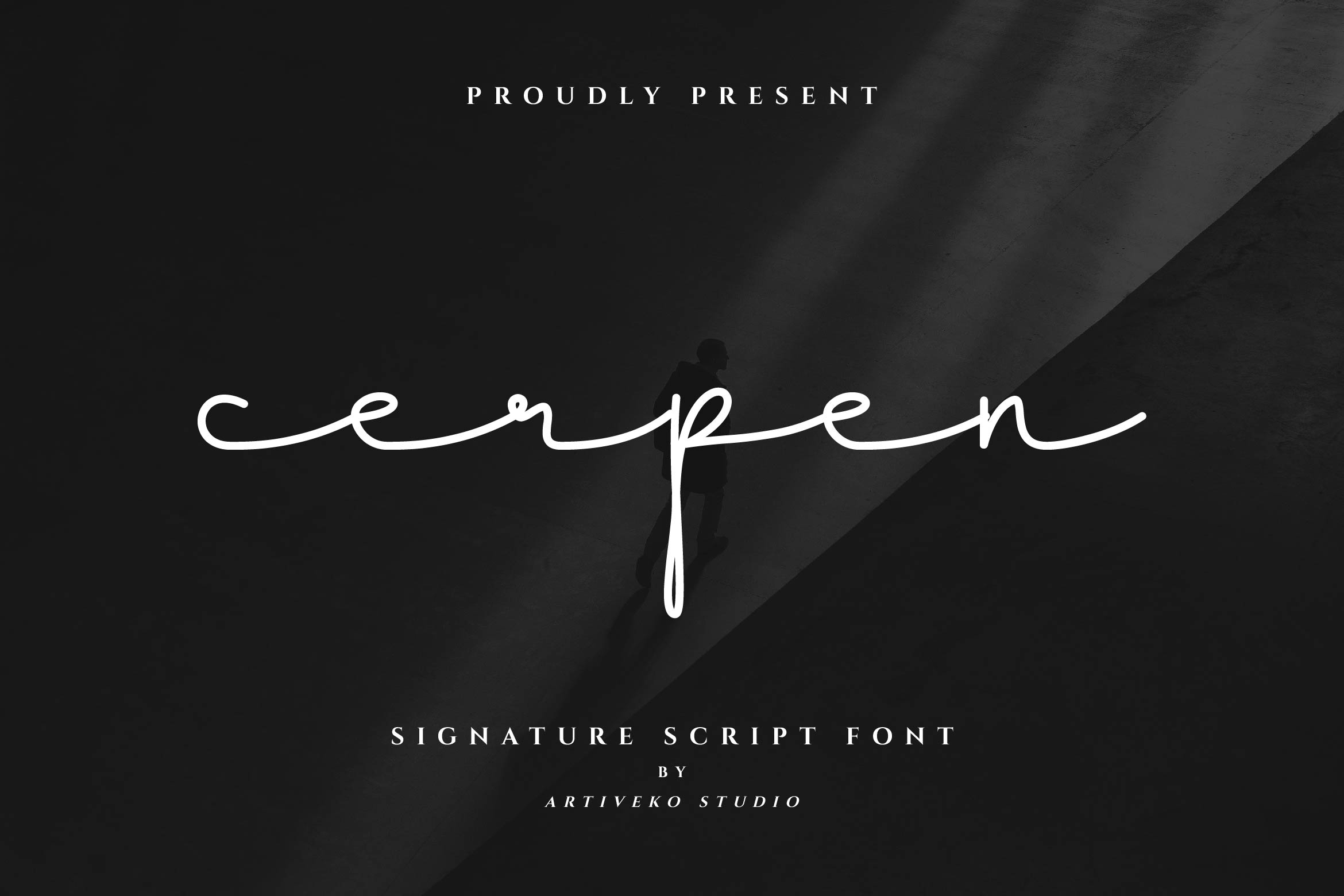
- Cerpen Beauty Script Font
Cerpen is a beautifully crafted handwritten script font that combines natural curves with a smooth, stylish flow. Perfect for adding a personal and elegant touch, Cerpen is ideal for wedding invitations, branding, greeting cards, social media posts, product packaging, and editorial designs.
Its authentic handwriting style creates warmth and sophistication, making it suitable for both casual and premium projects. The font includes uppercase and lowercase letters, numerals, punctuation, multilingual support, and a lovely selection of ligatures and alternates to give your typography a unique, customized feel.
Whether you’re designing romantic stationery or trendy logos, Cerpen brings your ideas to life with grace and personality.
Add beauty and authenticity to your work with Cerpen — the script font that speaks elegance with every stroke.